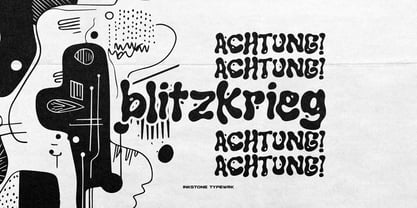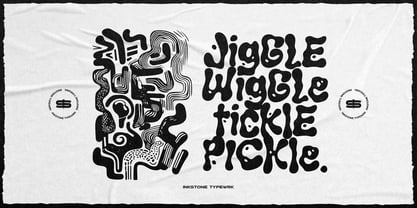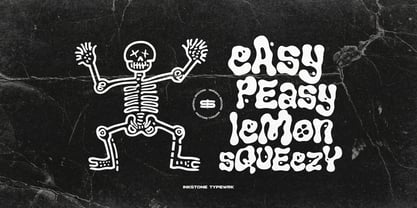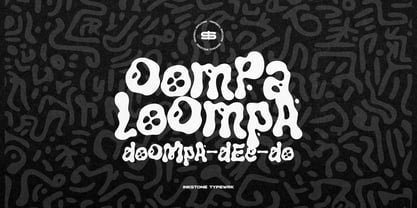
Chemicalos
von Inkstone Typewrk
Die Schriftfamilie Chemicalos wurde von Andhika Pradana, Yono Asmadiputra entworfen und von Inkstone Typewrk veröffentlicht. Chemicalos enthält 1 Stile. Mehr über diese Familie
Chemicalos - Liquid Abstract Font
Unleash the dripping chaos with Chemicalos, a slimy, sticky, and monstrously bold font that oozes with liquid energy. Built for edgy designs, horror aesthetics, and rebellious creatives, this typeface splashes across your work with melting, splattered strokes that refuse to sit still.
Whether you're crafting grungy posters, eerie branding, or eye-catching merch, Chemicalos delivers a perfect mix of creepy and cool. Inspired by toxic spills, mutant monsters, and gooey textures, this font brings the slime, the splash, and the attitude your project needs.
Designer: Andhika Pradana, Yono Asmadiputra
Foundry: Inkstone Typewrk